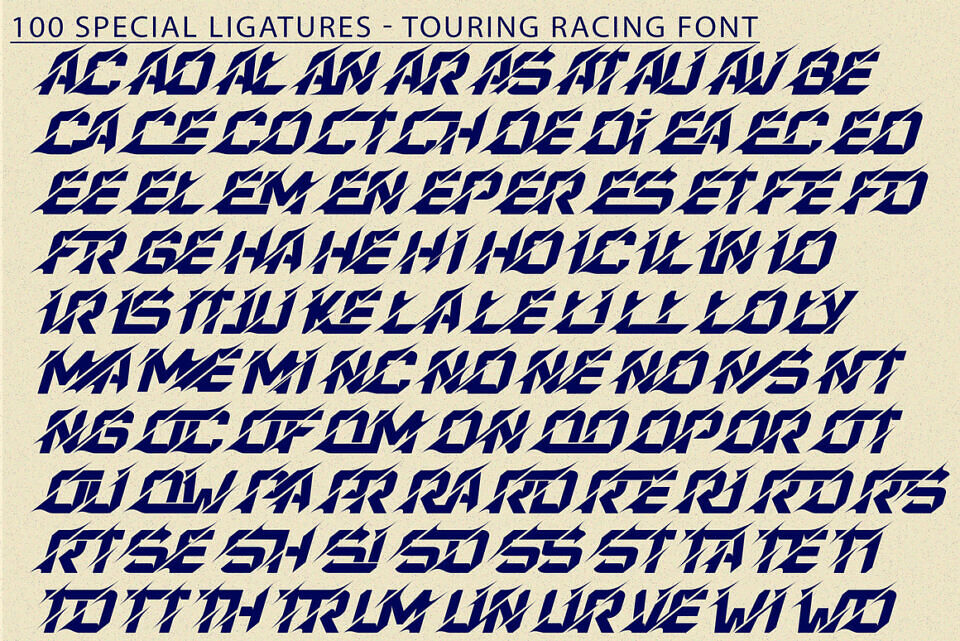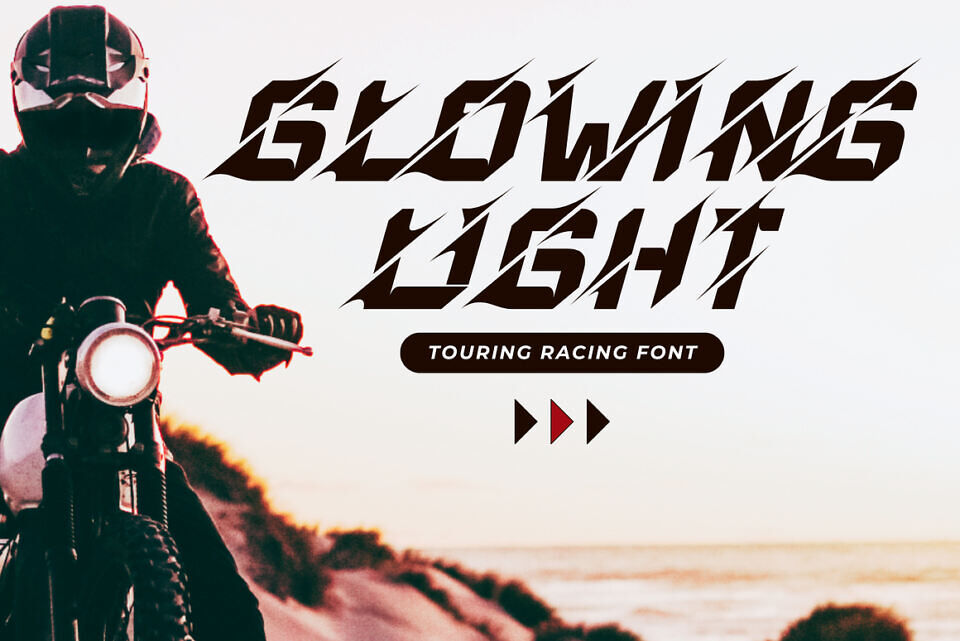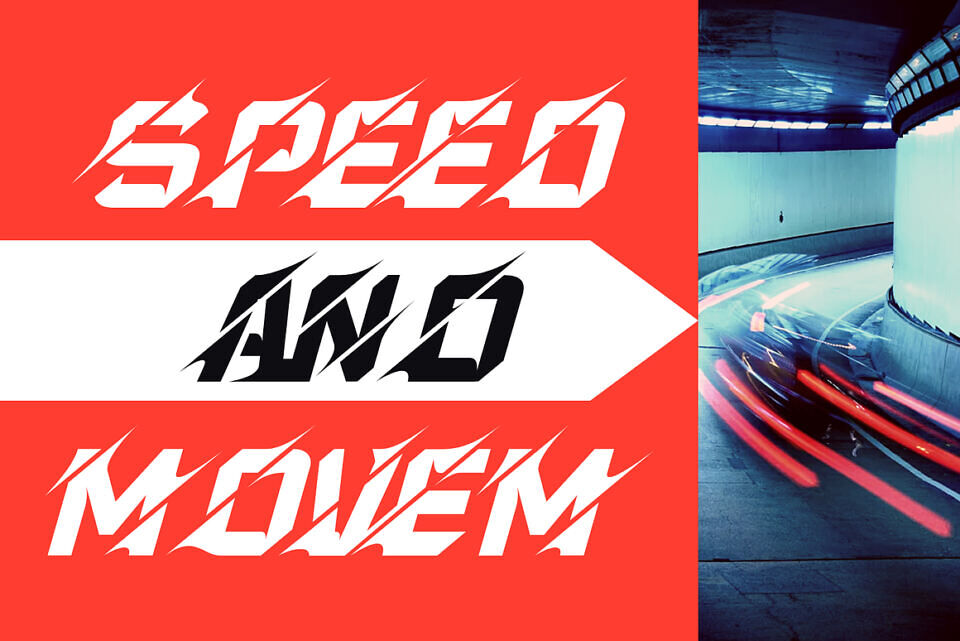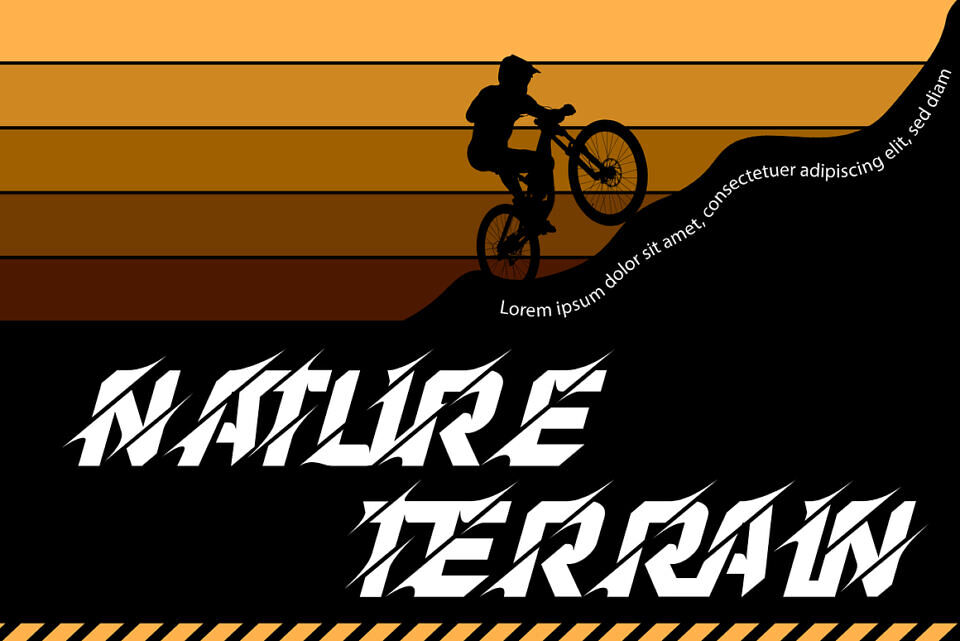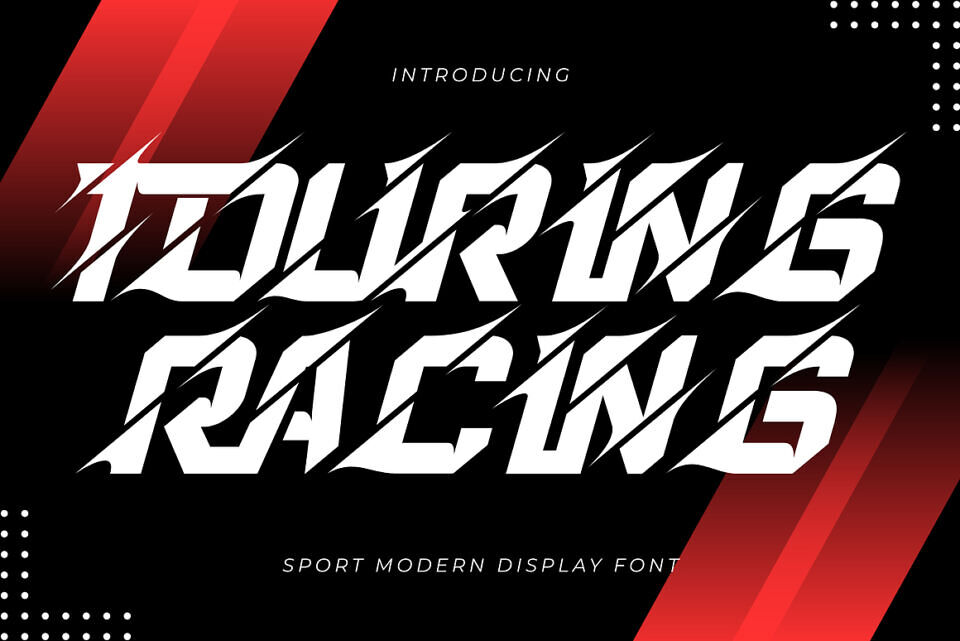
Touring Racing Font
Touring Racing is a Dynamic Modern Sport Font. Unleash the power and speed in your designs with Touring Racing, a cutting-edge modern display font built for impact.
Inspired by the high-octane world of racing and sports, Touring Racing features an aggressive, sharp design with dynamic cuts and a bold structure that screams energy and motion. Ideal for sports branding, racing posters, automotive themes, game titles, logos, headlines, tech-focused designs, and any project demanding a bold, energetic, and contemporary aesthetic.